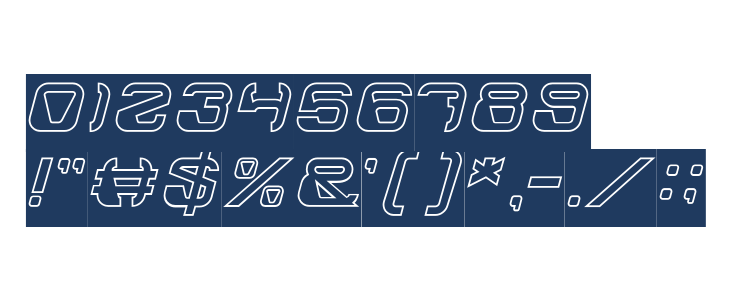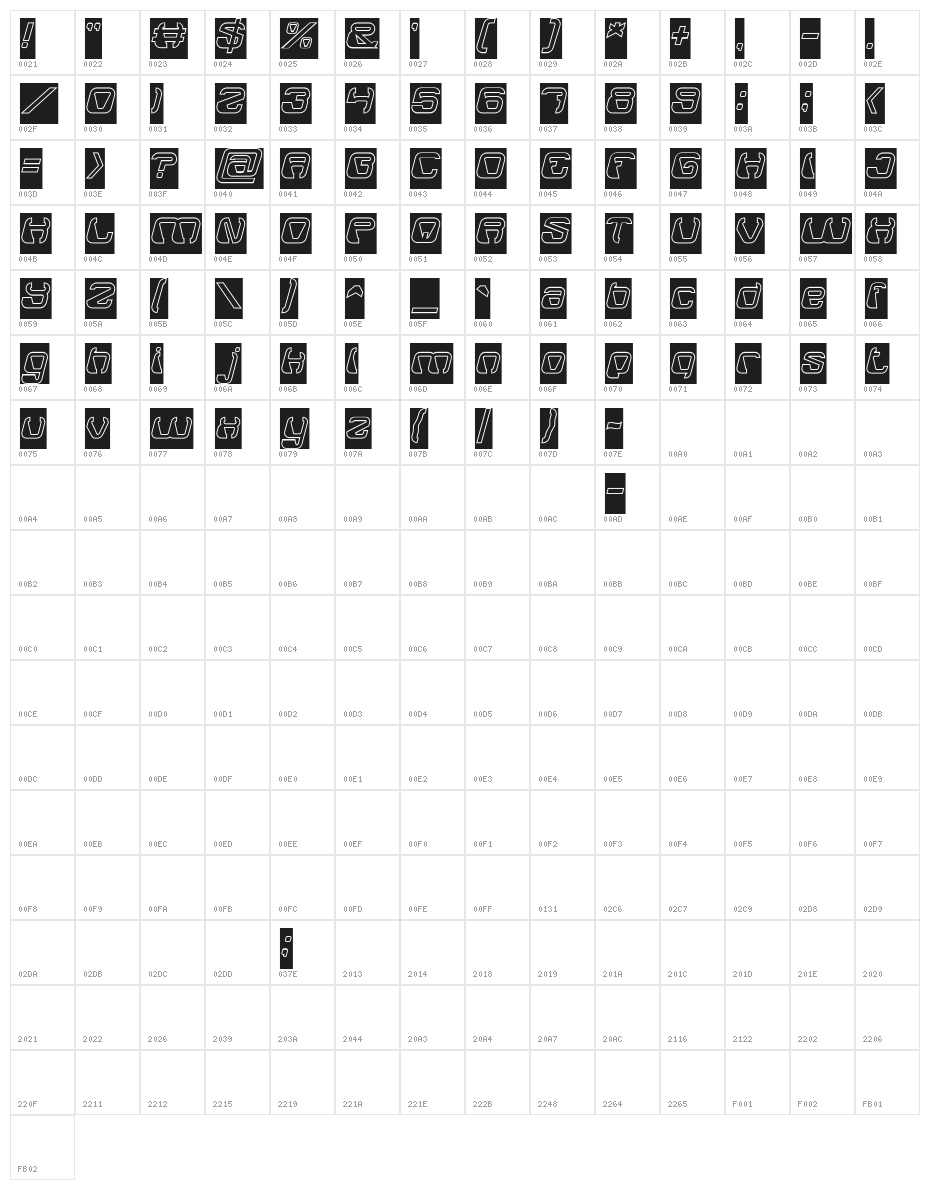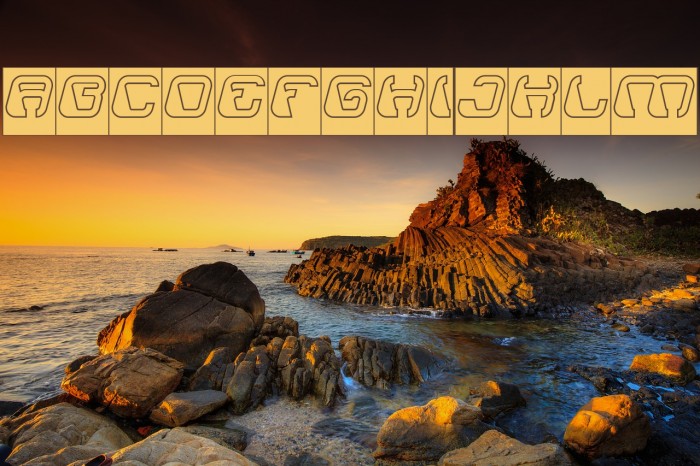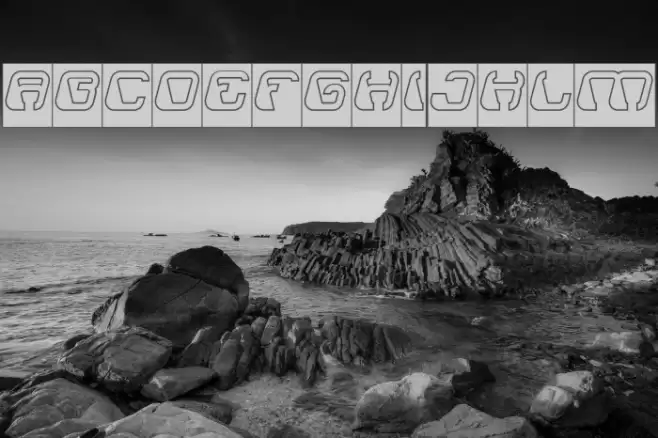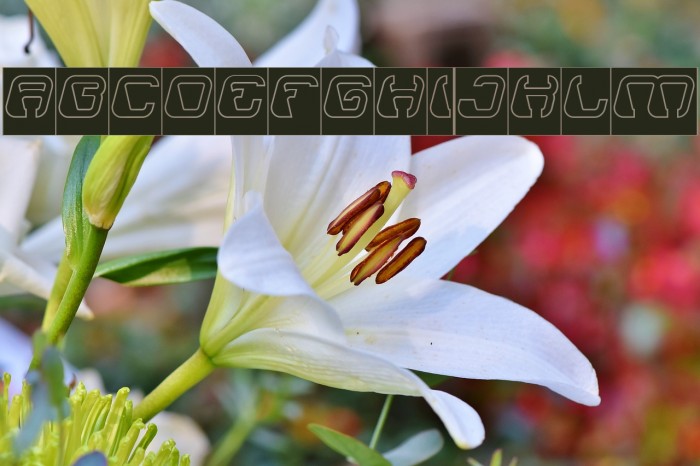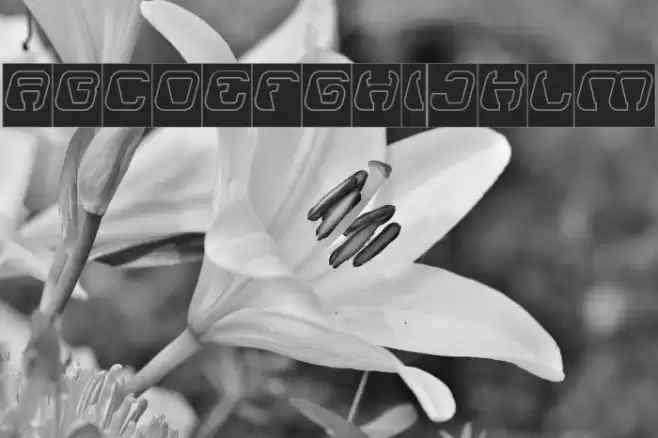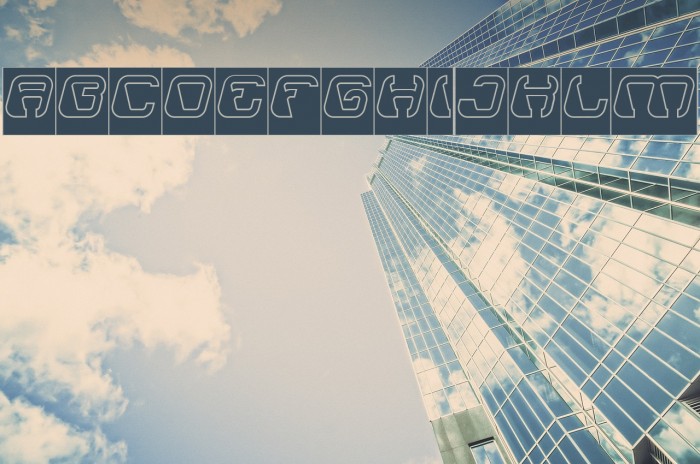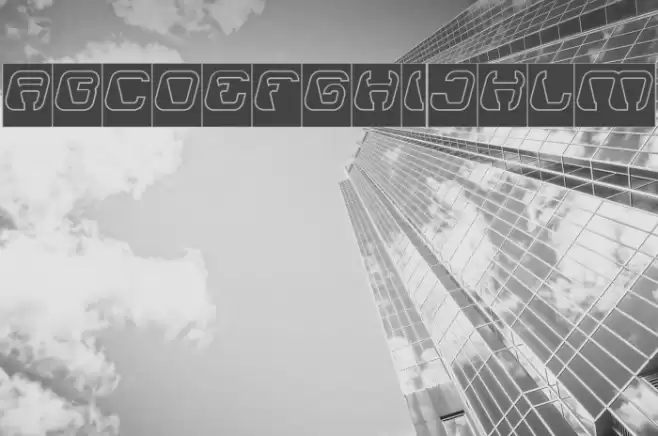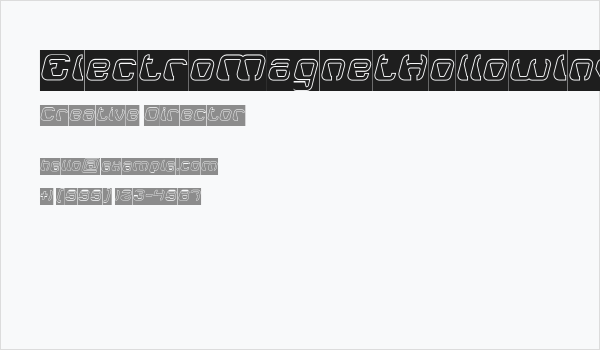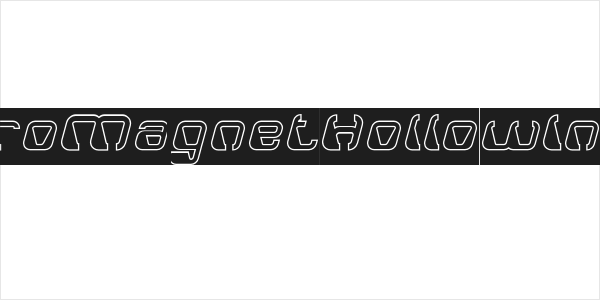
ElectroMagnetHollowInverse Font
ElectroMagnetHollowInverse Description
This font features a futuristic and geometric design with hollow, inverse letterforms. Each character is enclosed within a square, creating a distinct and structured appearance. The lines are consistent in thickness, giving the font a uniform look. The style is reminiscent of digital or electronic themes, making it suitable for modern and tech-oriented projects. The uppercase and lowercase letters maintain a cohesive style, while the numbers and special characters complement the overall design. The font's unique structure and hollow design make it stand out, ideal for eye-catching headlines or logos.